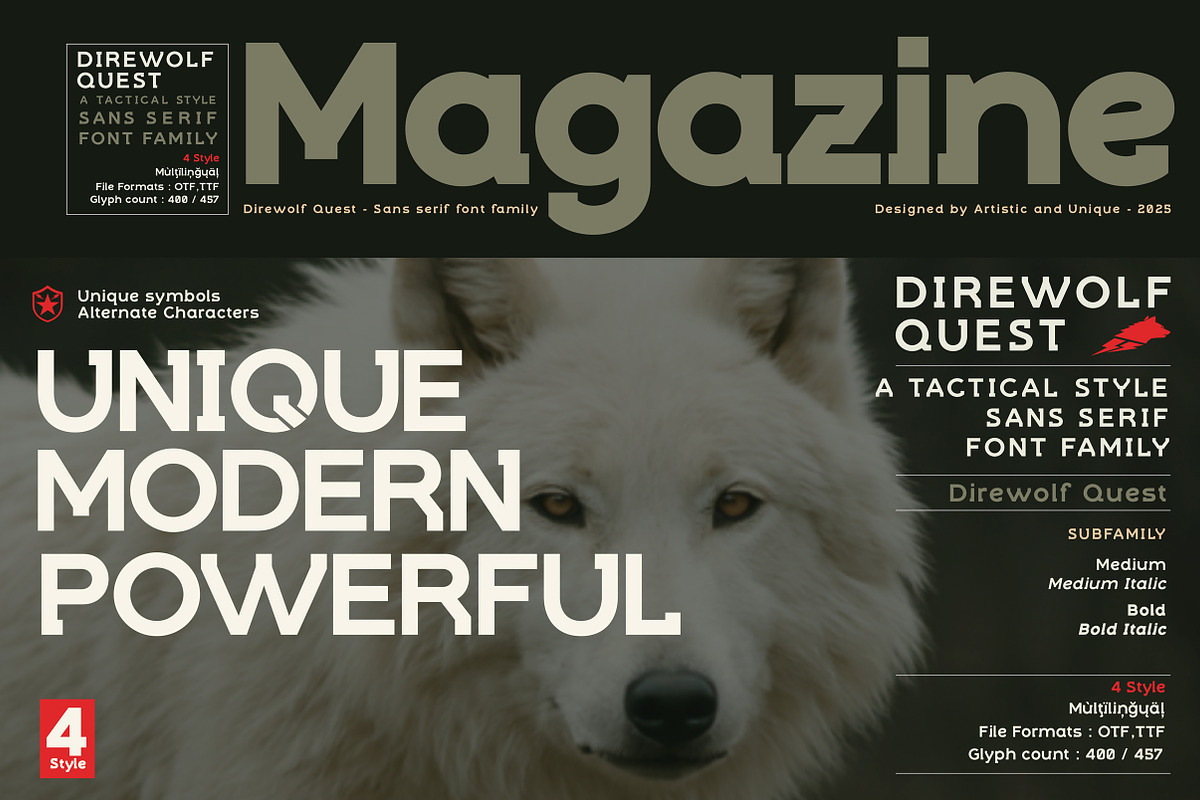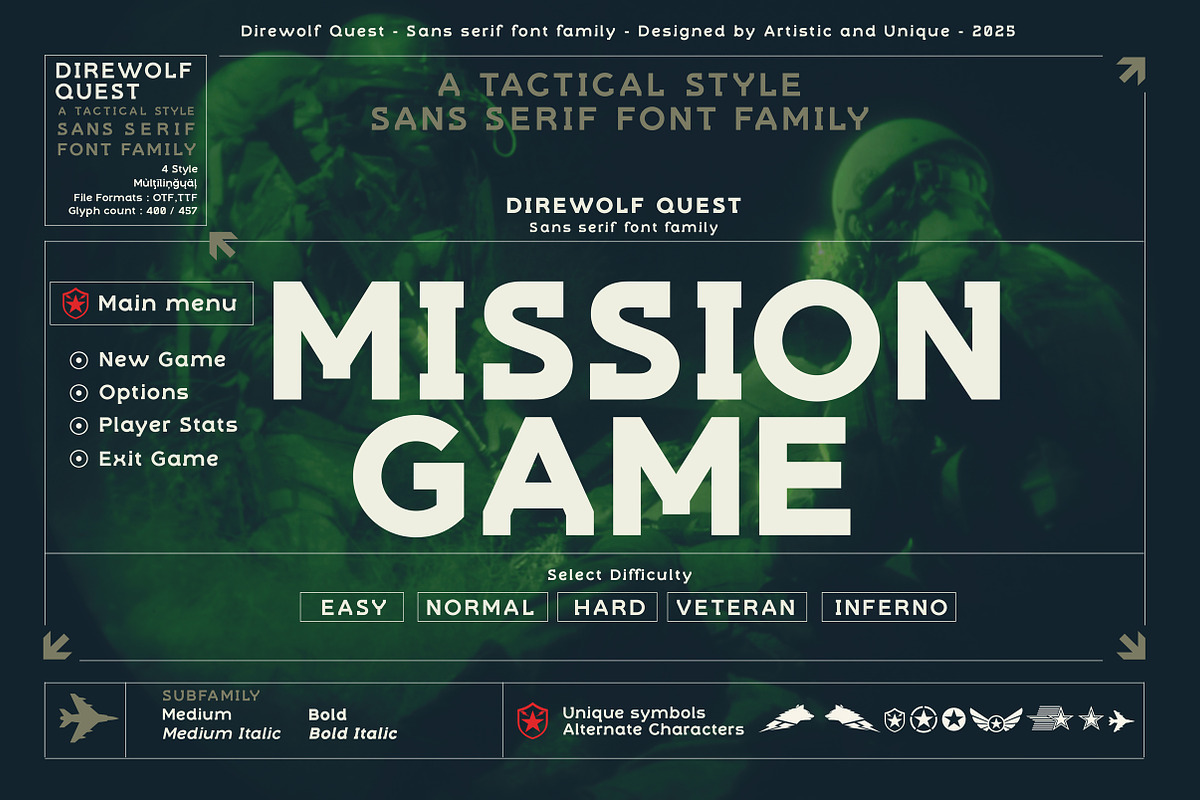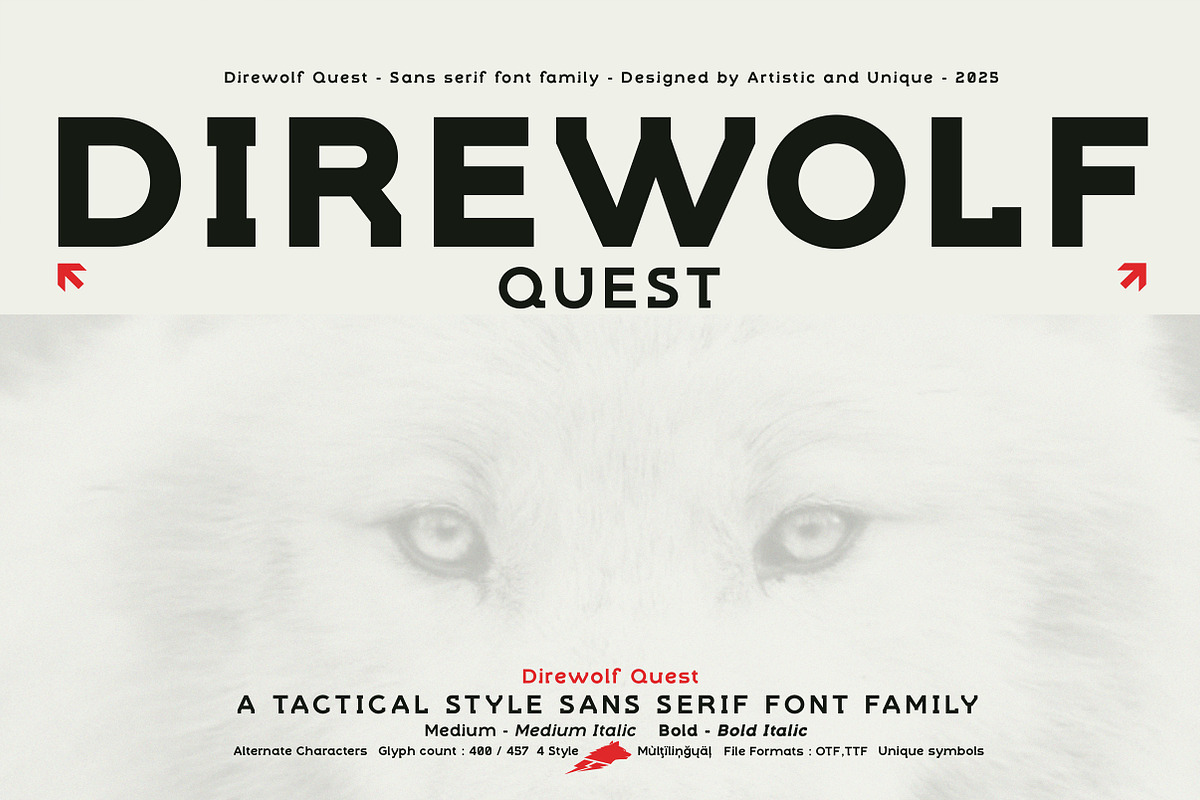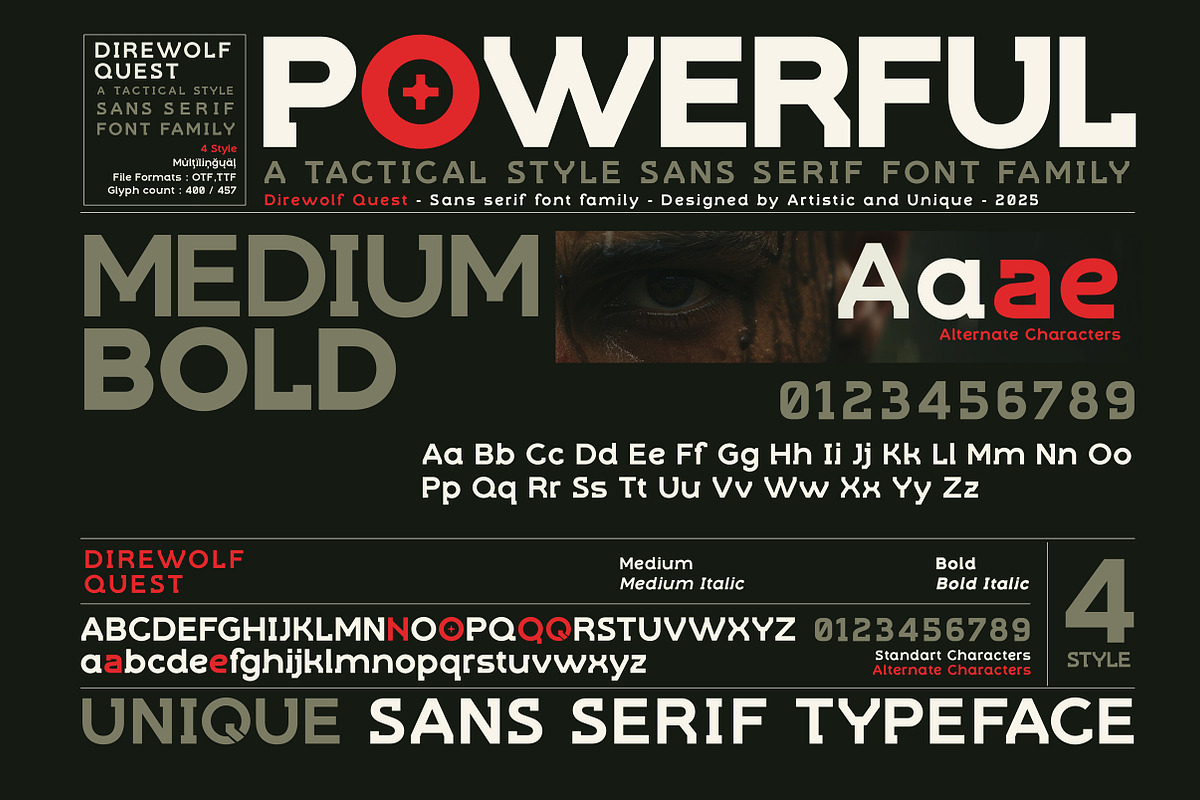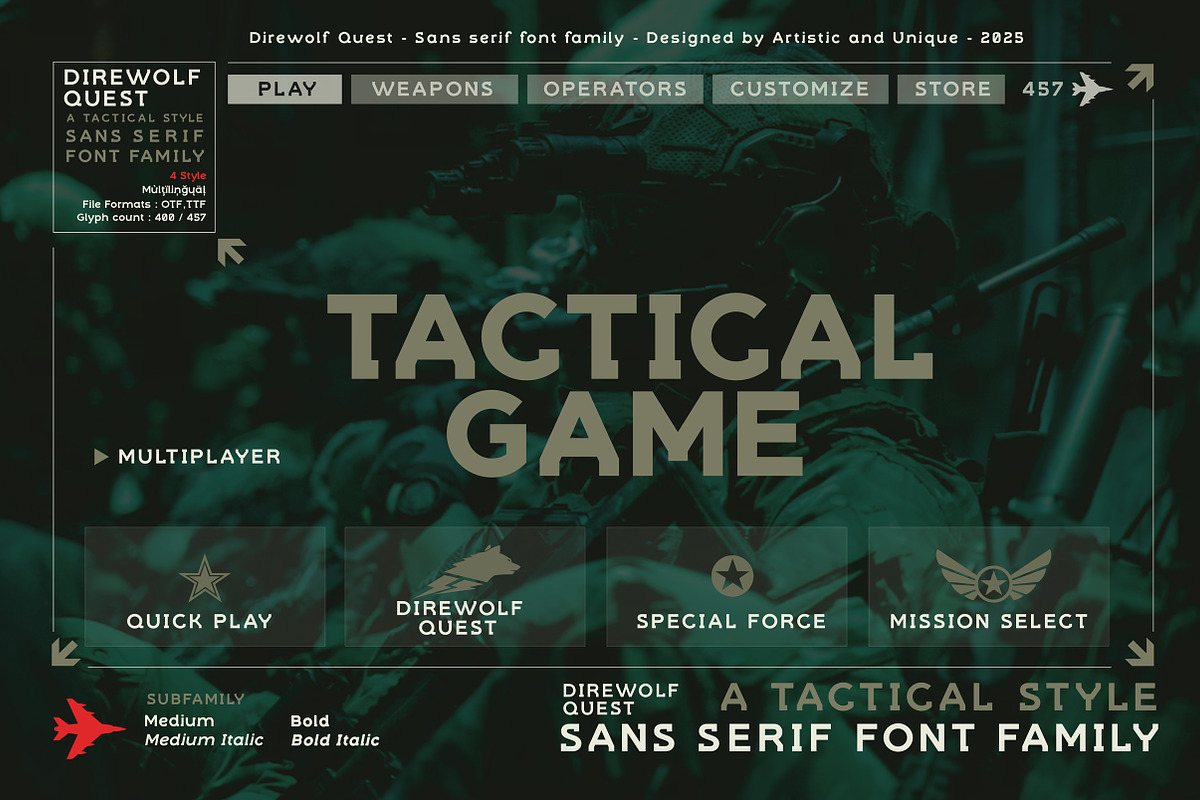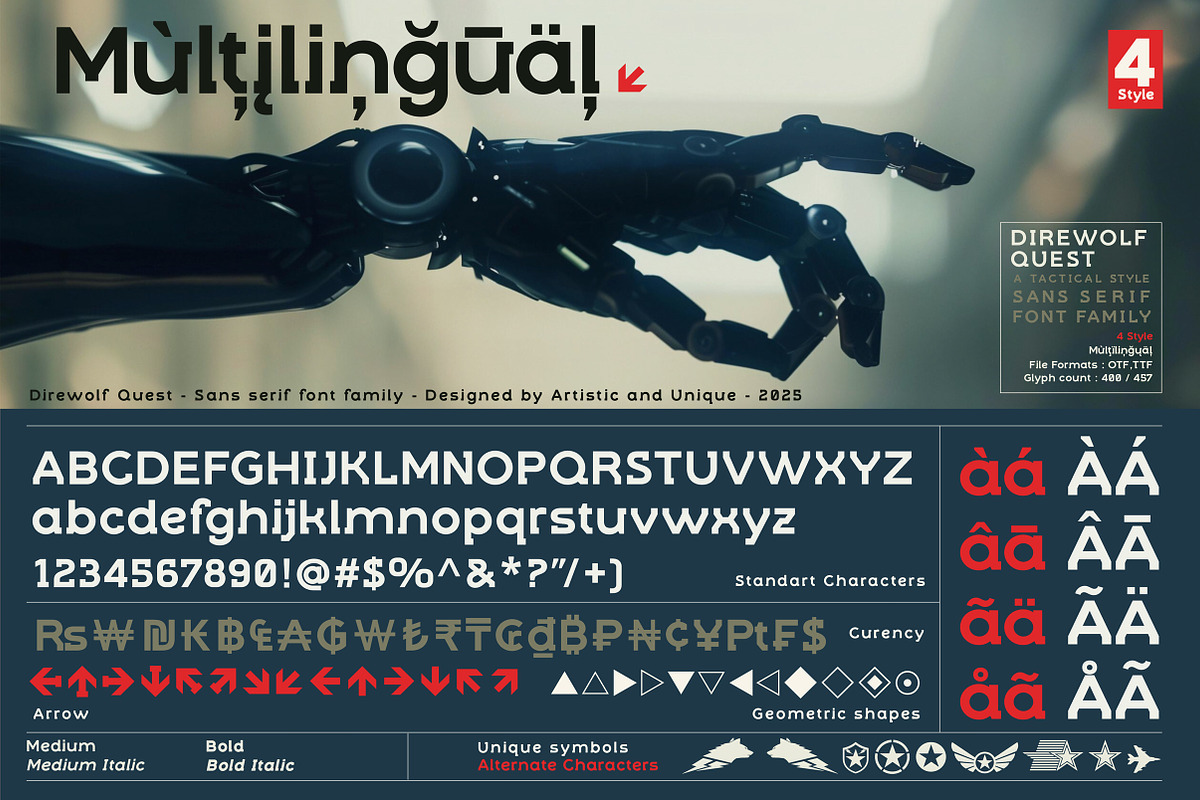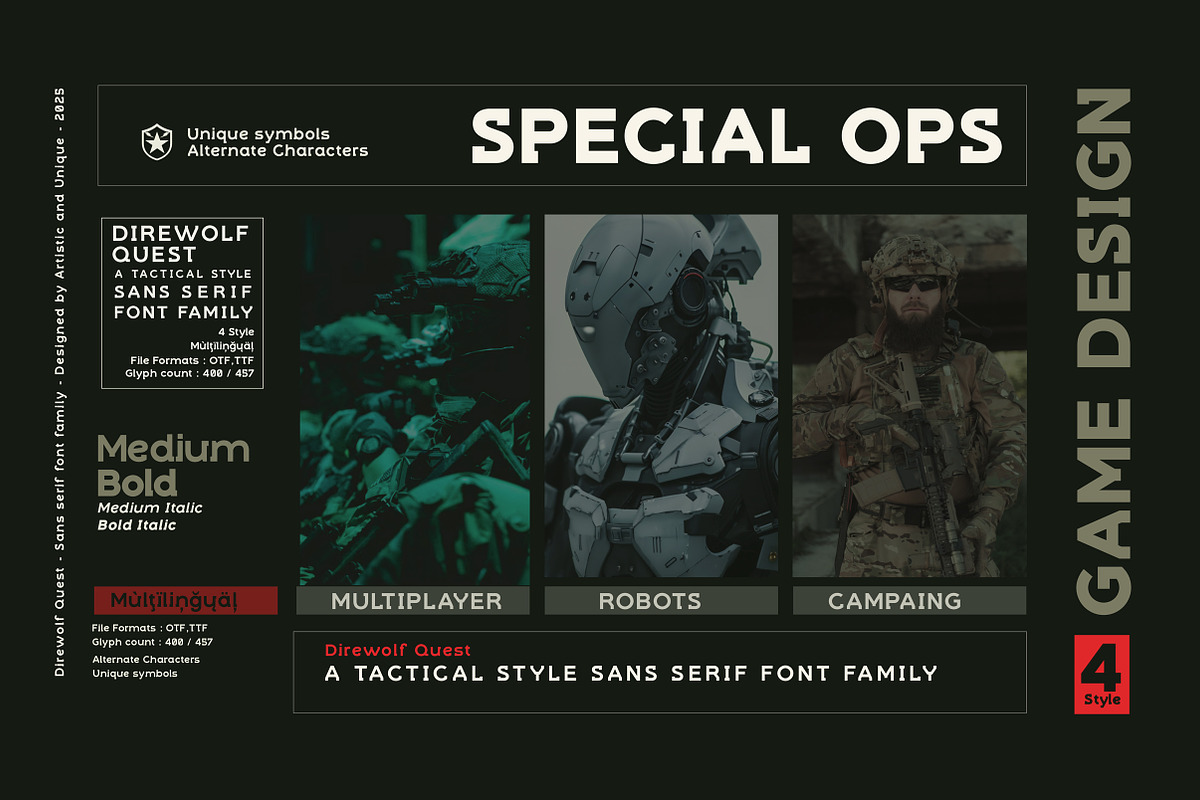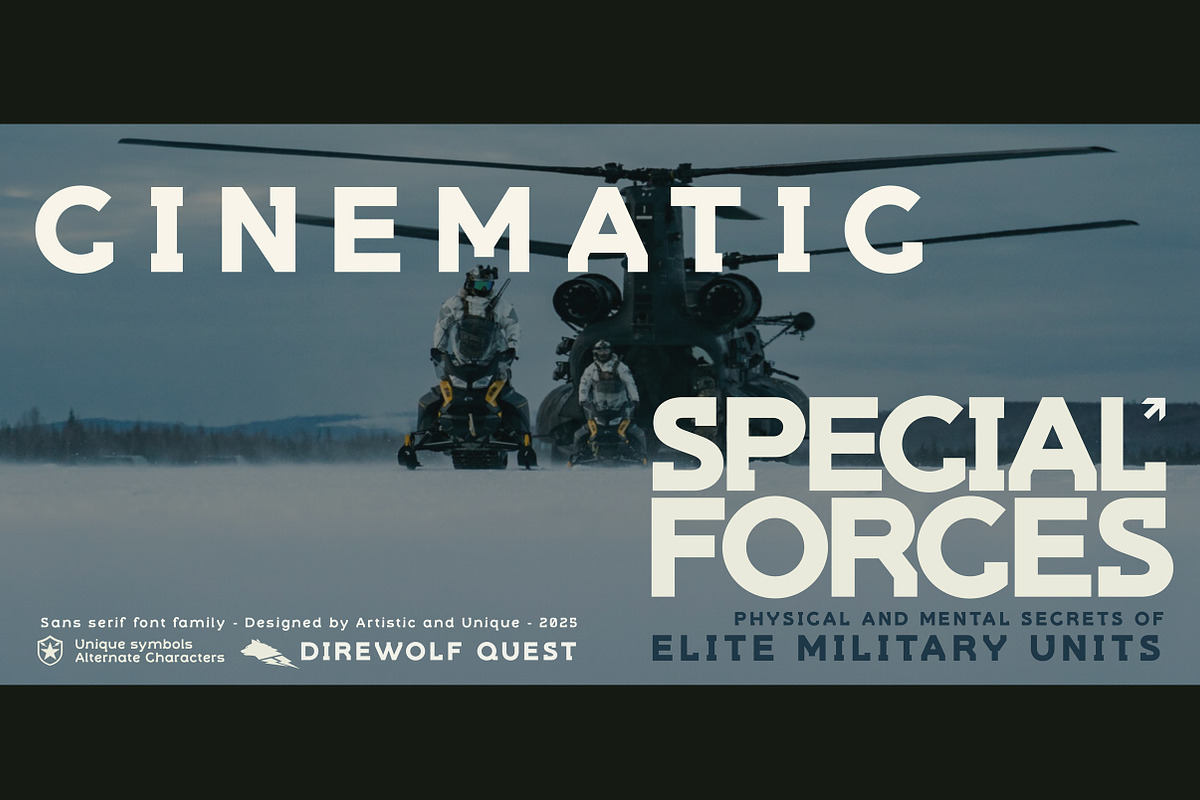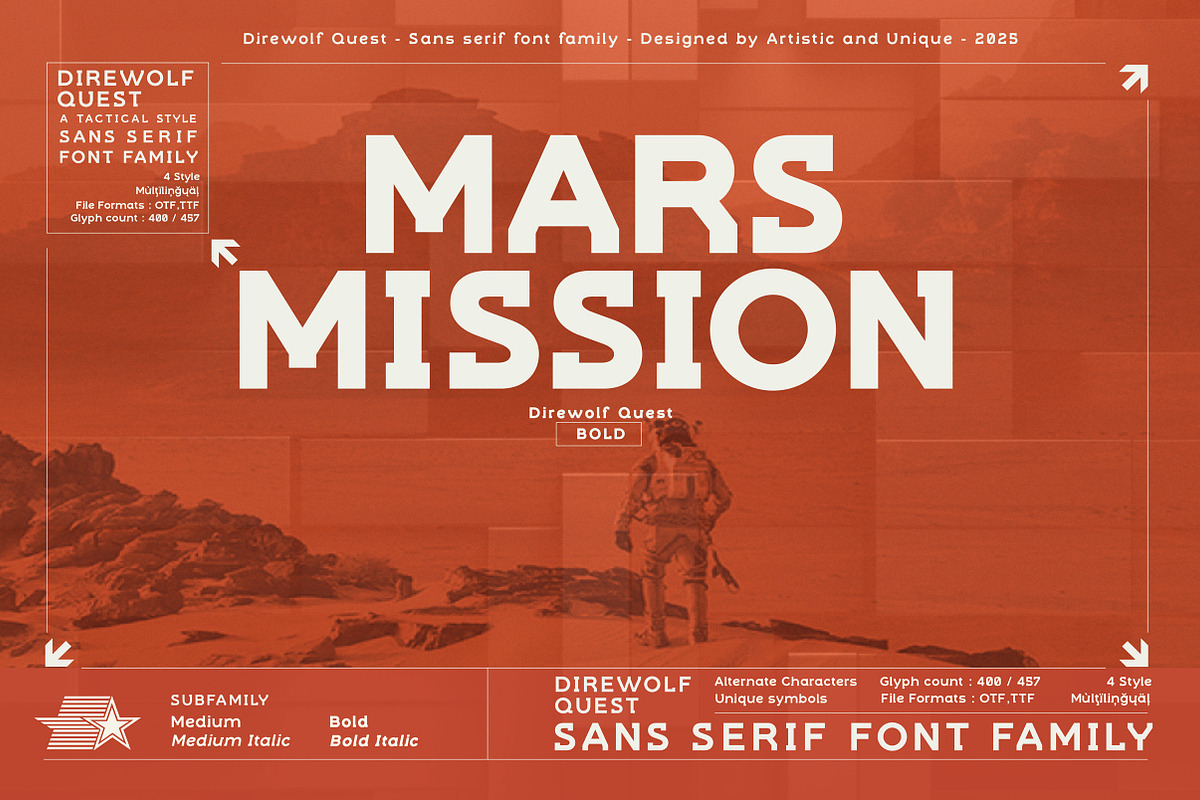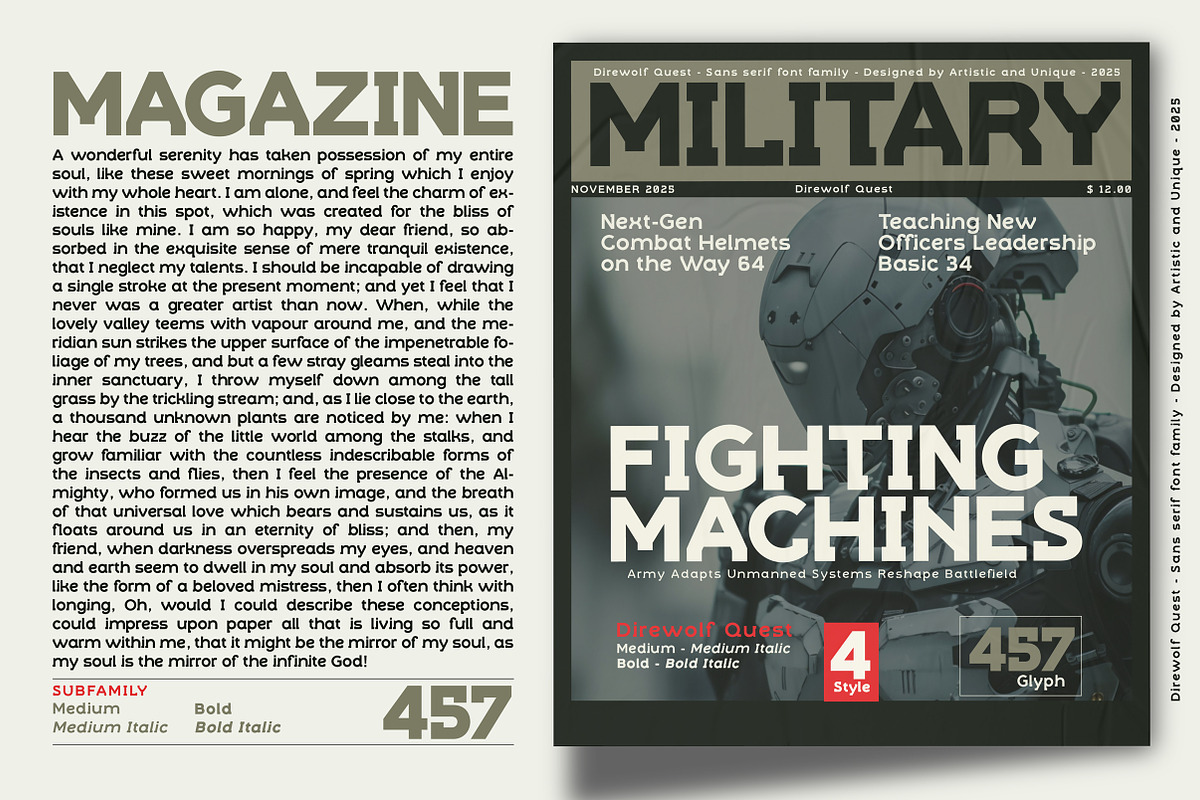
Direwolf Quest - Sans serif font
Direwolf Quest - Sans serif font family - 4 Styles - Multilingual supports.
Direwolf Quest is a Tactical style sans serif font family.
Although it is also suitable for display use, due to its modern, futuristic and athletic and structure, it was designed as a font that can be effective in creating brand identity and branding in all visual and printed materials of the same concept, from military and special forces, tactical equipment, athletic sports, science fiction themed games to movies.
You can catch a strong-dynamic and fast tempo by using italic style in your action-oriented projects.
It includes 4 styles and multilingual options and some unique symbols as well as alternative characters.
Especially for game design, Military, tactical equipment, athletic sports, science fiction, magazines, books, branding, logo design, web design, headlines, movie titles etc.